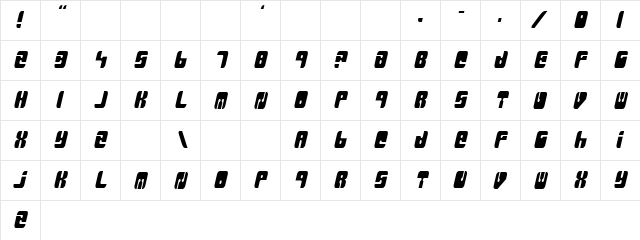
MassiveRetaliation Regular Font Preview
MassiveRetaliation Regular
MassiveRetaliation Regular Font Details
Design Context for MassiveRetaliation Typeface
MassiveRetaliation is a composed and adaptable typeface that performs quietly and consistently across a wide range of design contexts.